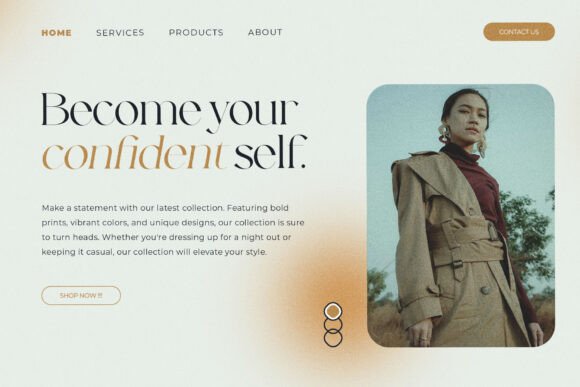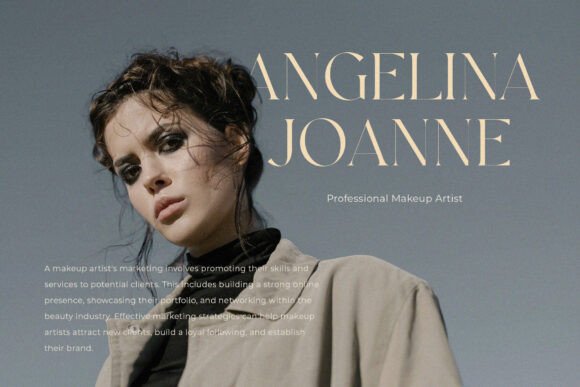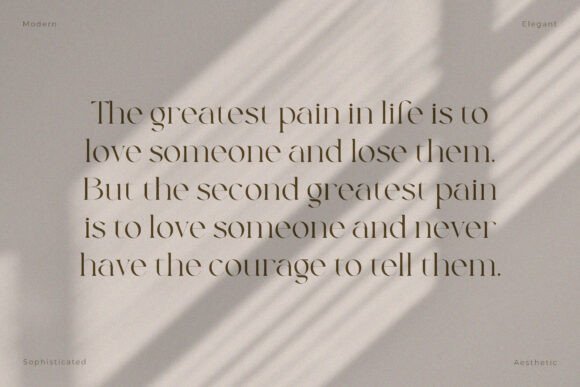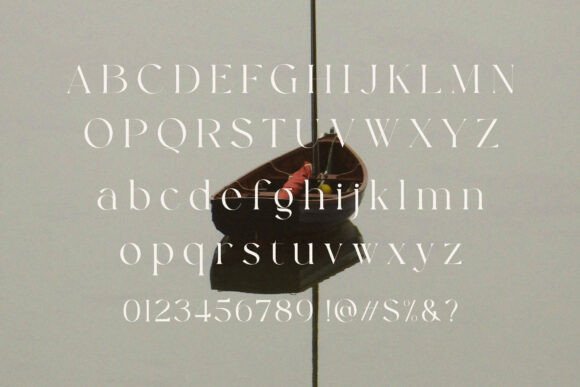
Introduction to Second Quotes Font
Have you ever found yourself in a creative moment, surrounded by blank pages and an idea that refuses to take shape? For designers, this can be a frustrating yet familiar experience. But what if you had the perfect tool to bring your vision to life? Enter the Second Quotes Font, a modern, elegant serif font that’s been making waves in the design community.
With its clean lines and timeless style, the Second Quotes Font is a game-changer for designers looking to elevate their projects. Whether you’re working on a high-quality design resource or a creative project that requires a touch of sophistication, this font is sure to impress. And the best part? It’s available for free download, making it an accessible addition to any design toolkit.
Key Features of Second Quotes Font
- High-quality design resource ideal for creative projects, including quotes, posters, and social media graphics.
- Available in a transparent background option for seamless integration with various design elements.
- Includes 5 unique font styles with matching outlines and shadows for added depth and visual interest.
- Each font style is available in 6 different sizes, ranging from 12pt to 72pt, to suit various design needs.
- Designed at a high resolution of 300 DPI for crisp and clear display in both print and digital media.
- Perfect for designers, artists, and writers looking for a unique and creative way to express themselves in their work.
Honest Review: Second Quotes Font
As a designer, I’m always on the lookout for high-quality design resources to elevate my creative projects. Recently, I came across the Second Quotes Font, and I’m excited to share my honest review with you.
- ✨ Unique and creative font styles that add a touch of elegance to any design
- ✨ Transparent background, making it easy to use in various design applications
- ⚠️ Limited character set, which may be a concern for designers who need to use it for extensive text
- ⚠️ Not ideal for use in small font sizes, as it may become difficult to read
Overall, I’m impressed with the Second Quotes Font’s potential to add a touch of sophistication to my designs. While it has its limitations, I appreciate its unique style and free availability. It’s definitely a great resource to have in my design toolkit.
How to Use Second Quotes Font
The Second Quotes Font is a high-quality design resource ideal for creative projects. It features a unique and stylish design, making it perfect for various applications.
Tips for Getting the Most Out of Second Quotes Font
To maximize the impact of the Second Quotes Font, use it sparingly and strategically. Combine it with other high-quality design resources to create a visually appealing design.
The Second Quotes Font is perfect for various applications, including blog posts, social media graphics, and marketing materials. Its unique design makes it ideal for creative projects that require a touch of elegance and sophistication.